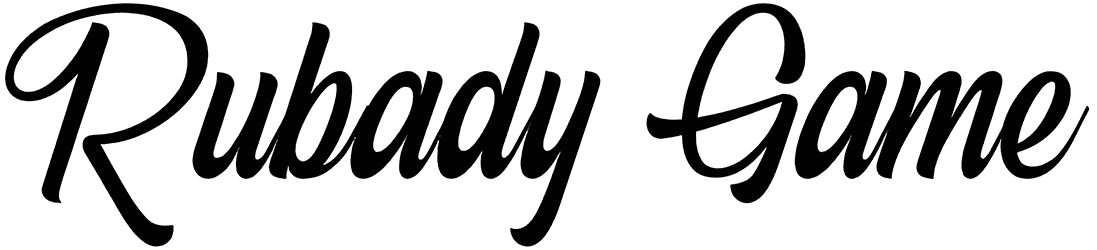
Rubady Game Font
Using a baseball font will provide an energetic and cool vibe for your projects and this item has such a visual. The letters of this script font have a modern and captivating mood but it doesn’t offer numerals. Let’s put the Rubady Game font on your coming layouts namely a school poster, and see how unique it will be.